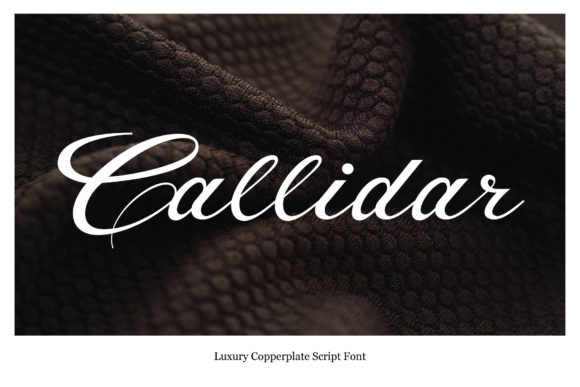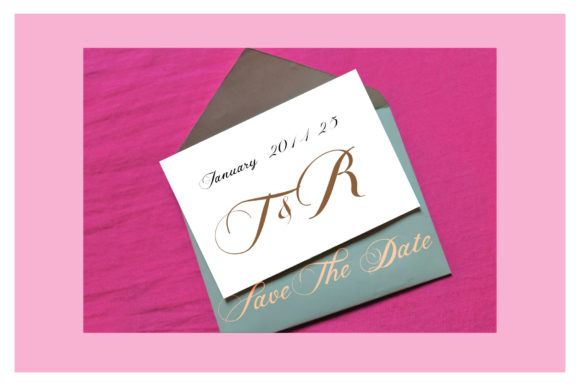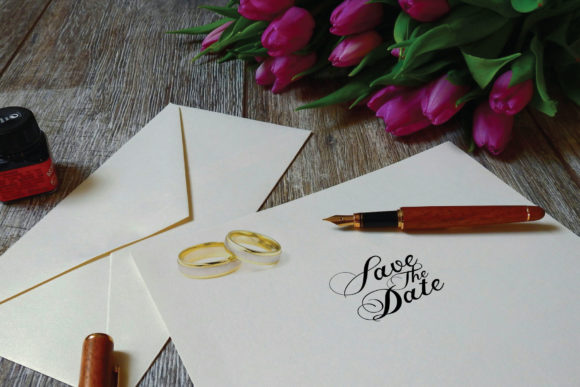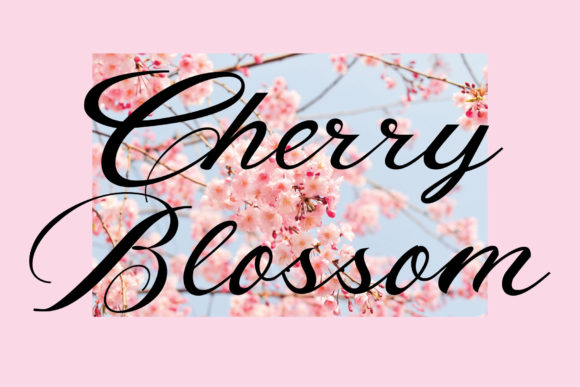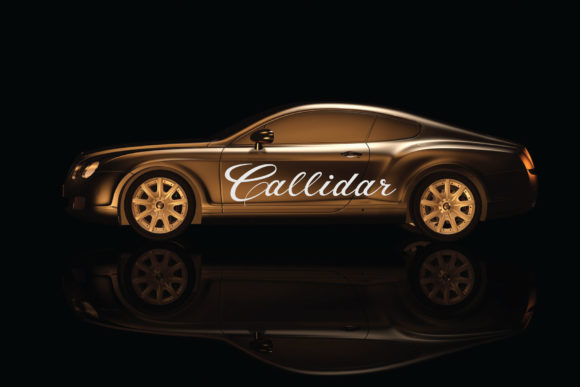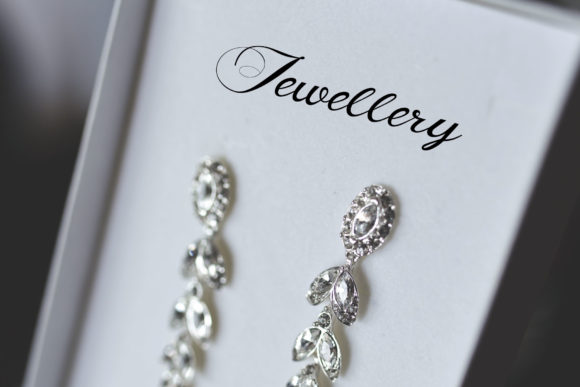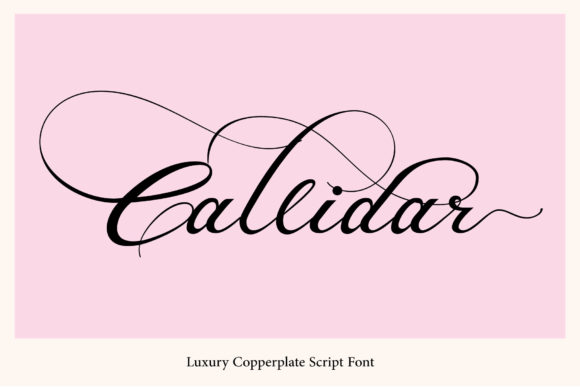
Introducing Callidar Font: Elevate Your Design with Timeless Elegance
In the world of typography, fonts play a crucial role in conveying messages, evoking emotions, and setting the tone for any design project. Among the numerous fonts available, Callidar stands out as a unique and versatile script font that brings a touch of classic elegance to modern designs. Inspired by traditional typography, Callidar injects its own distinctive style into any project, making it an excellent choice for designers and crafters seeking to make a lasting impression.
The Inspiration Behind Callidar
Callidar’s design roots lie in classic typography, where timeless fonts have been used for centuries to convey sophistication, luxury, and refinement. The creators of Callidar have skillfully blended traditional elements with modern twists, resulting in a font that exudes both nostalgia and freshness. This harmonious blend allows Callidar to seamlessly integrate into various design contexts, from vintage-inspired branding to contemporary digital media.
Key Features of Callidar Font
So, what makes Callidar an exceptional choice for designers? Here are some key features that set it apart:
- Versatility: Callidar is designed to excel in various applications, including headlines, body text, and even moving images. Its adaptability makes it an ideal choice for projects that require a font to perform across different mediums.
- Unique Style: Callidar’s distinctive character set and elegant lines bring a fresh perspective to traditional typography. Its unique style ensures that your designs stand out from the crowd, making it perfect for brands seeking to establish a strong visual identity.
- Legibility: Despite its ornate appearance, Callidar remains highly legible, even at smaller font sizes. This makes it suitable for blocks of text with varying font sizes, ensuring that your message is conveyed clearly and effectively.
Use Cases for Callidar Font
Callidar’s versatility and aesthetic appeal make it an excellent choice for a wide range of design projects, including:
- Branding and Logos: Create a lasting impression with Callidar’s elegant and sophisticated appearance, perfect for luxury brands, fashion labels, and high-end services.
- Print Design: Elevate your print materials, such as brochures, posters, and business cards, with Callidar’s refined and classic style.
- Digital Media: Use Callidar to add a touch of sophistication to your website, social media graphics, or video content, ensuring your message stands out in a crowded digital landscape.
Tips for Using Callidar Font Effectively
To maximize the impact of Callidar in your designs, consider the following tips:
- Pair with Neutral Fonts: Combine Callidar with simpler fonts to create visual contrast and ensure readability.
- Experiment with Font Sizes: Take advantage of Callidar’s versatility by using it in various font sizes to create visual hierarchy and emphasis.
- Pay Attention to Line Spacing: Adjust line spacing to optimize readability, especially when using Callidar for longer blocks of text.
Callidar font is a powerful tool for designers and crafters seeking to infuse their projects with timeless elegance and sophistication. Its unique blend of classic inspiration and modern style makes it an exceptional choice for a wide range of applications, from branding and print design to digital media. By incorporating Callidar into your design arsenal, you’ll be able to create stunning visuals that captivate audiences and leave a lasting impression.
Get Ready to Elevate Your Designs with Callidar
Whether you’re a seasoned designer or a crafty DIY enthusiast, Callidar font is sure to become a favorite in your typography collection. With its versatility, unique style, and legibility, Callidar is poised to elevate your designs and help you achieve your creative goals. So why wait? Explore the possibilities of Callidar today and discover a world of typographic excellence!